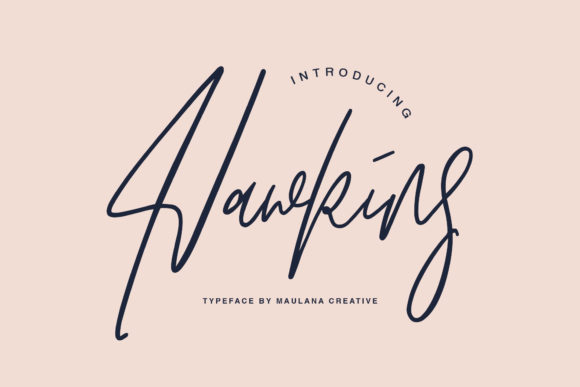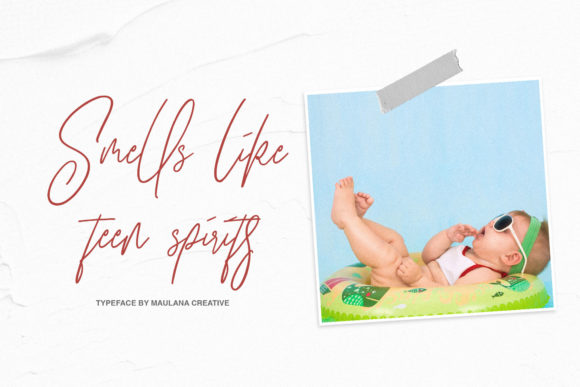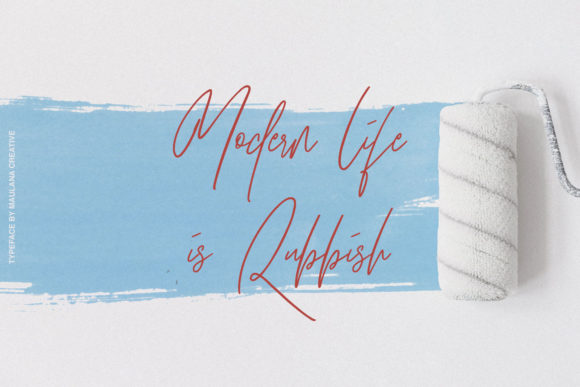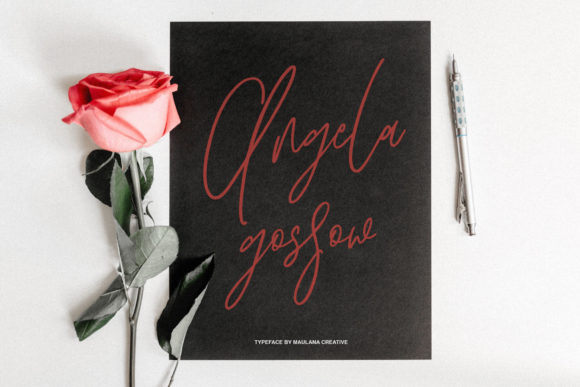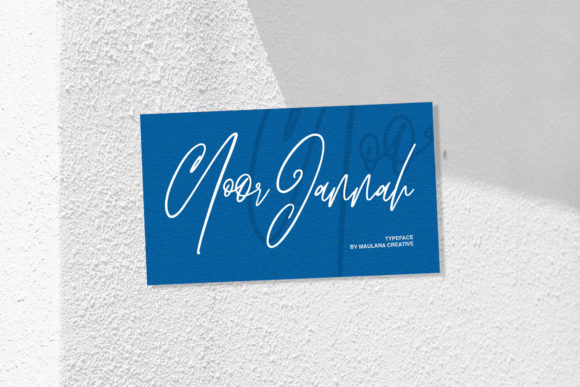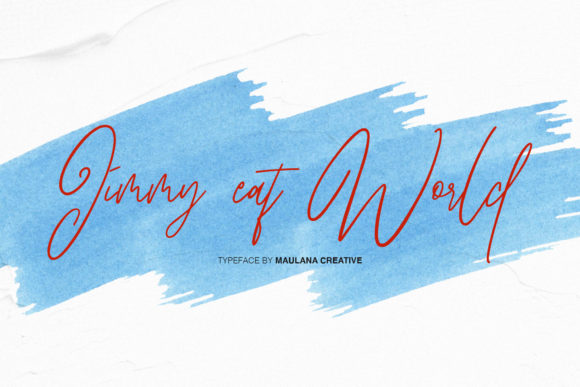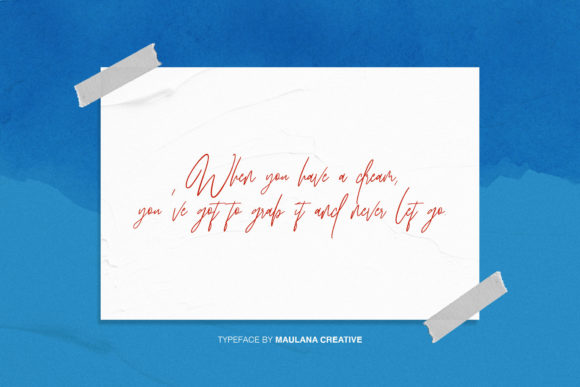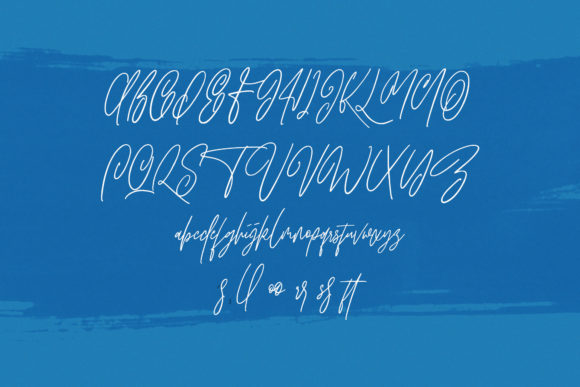
Hawkins Font
About Hawkins Font
Hawkins is the perfect font for giving your designs a handcrafted feel. Use it to turn any design idea into a true standout!